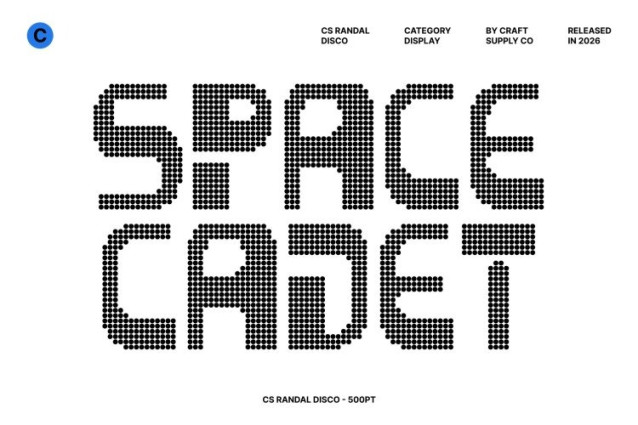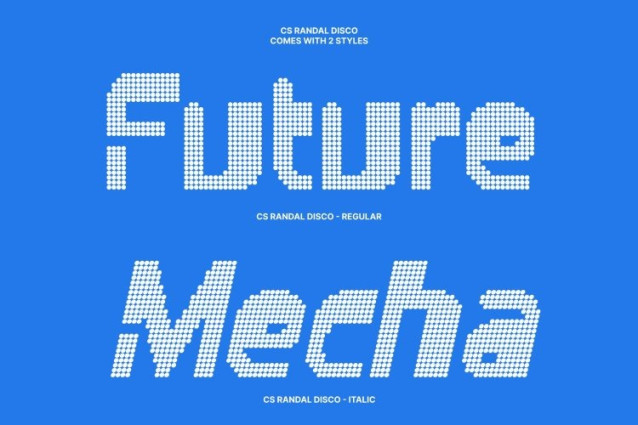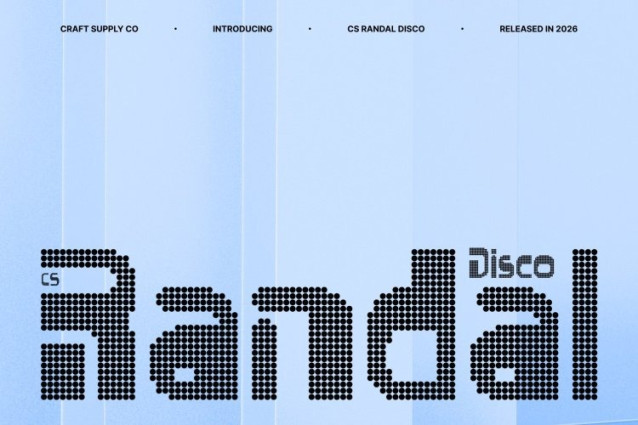
CS Randal Disco Font
CS Randal Disco Font – This is an experimental sans serif font built on bold brutalist foundations, enhanced with a vibrant disco-style dotted texture. Its sharp edges, rigid forms, and unapologetically industrial structure create a commanding visual presence, while the dotted sparkle introduces a surprising layer of rhythm and visual excitement. The result is a striking fusion of raw architectural strength and lively decorative energy.
Sharp Geometry with Luminous Detail
The font’s angular geometry reflects the essence of brutalist design mechanical, structured, and powerful. Each character feels engineered with precision, echoing the forms of urban architecture and industrial design. The disco-inspired dotted texture adds depth and motion to these sharp shapes, creating a visually engaging contrast between strict geometry and playful shimmer.
Futuristic Expression with Contemporary Character
Although rooted in brutalist aesthetics, this font carries a forward-looking attitude. Its clean proportions and experimental balance create a futuristic rhythm that feels modern and progressive. The dotted surface detail introduces a dynamic visual texture, transforming the industrial style into something both bold and visually vibrant.
Perfect for Editorials, Posters, and Graphic Design
This font excels in editorial layouts, posters, branding statements, and conceptual graphic design projects. Its strong personality and geometric clarity make it ideal for high-impact headlines and experimental compositions, especially in designs that embrace modern, urban, or avant-garde aesthetics.